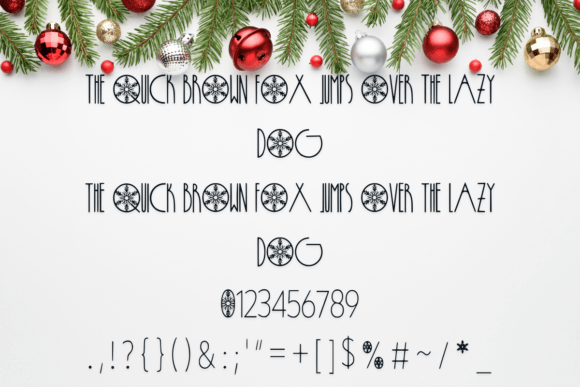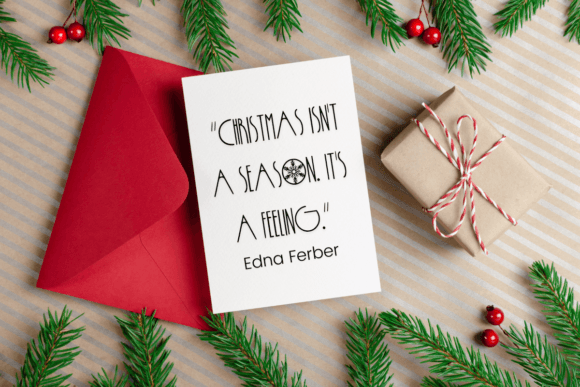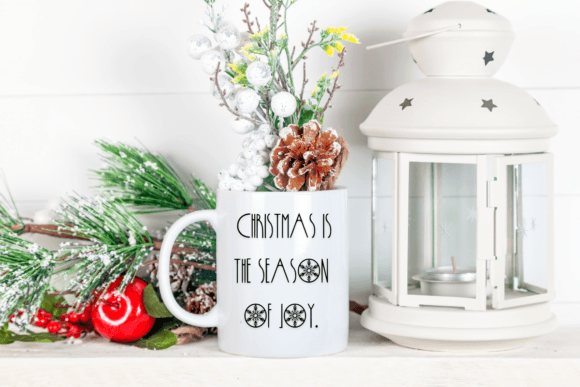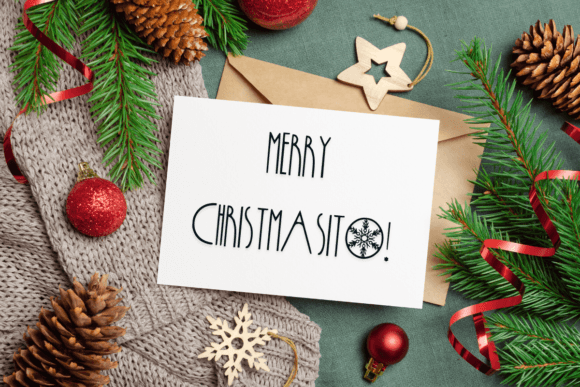
Introducing Christmasito Font: The Perfect Holiday Display Font
Are you looking for a font that captures the fun and festive spirit of Christmas? Look no further than Christmasito Font! This all-caps, display font is designed to bring a touch of holiday cheer to your designs and projects. With its childish and friendly style, Christmasito is perfect for a wide range of applications, from holiday cards and invitations to festive posters and social media graphics.
The Unique Features of Christmasito Font
So, what sets Christmasito Font apart from other display fonts? For starters, its all-caps design gives it a bold and eye-catching look that’s sure to grab attention. But it’s not just the font’s uppercase letters that make it special – it’s also the adorable snowflakes that are woven throughout the design. These cute snowflakes add a friendly, informal, and cozy touch to the font, making it perfect for creating festive and fun designs.
Why Designers and Crafters Love Christmasito Font
Designers and crafters are always on the lookout for fonts that can help them create unique and engaging designs. Christmasito Font is a great choice for anyone looking to add a touch of holiday magic to their projects. Here are just a few reasons why designers and crafters love Christmasito Font:
- Easy to read: Despite its festive design, Christmasito Font is surprisingly easy to read, even at smaller sizes. This makes it perfect for use in a wide range of applications, from holiday cards to social media graphics.
- Versatile: Christmasito Font is a versatile font that can be used in a wide range of designs and projects. Whether you’re creating a festive poster, a holiday card, or a social media graphic, Christmasito Font is a great choice.
- Fun and festive: Let’s face it – Christmasito Font is just plain fun! Its festive design and adorable snowflakes make it the perfect choice for anyone looking to add a touch of holiday cheer to their designs.
How to Use Christmasito Font in Your Designs
Now that you know a little bit more about Christmasito Font, let’s talk about how to use it in your designs. Here are a few tips to get you started:
- Pair it with a simple background: Christmasito Font is a bold and eye-catching font, so it’s best to pair it with a simple background that won’t compete with the font. A plain white or colored background works well.
- Use it for headlines: Christmasito Font is perfect for use in headlines and titles. Its bold design and adorable snowflakes make it a great choice for grabbing attention.
- Add some festive graphics: To really make your designs pop, consider adding some festive graphics, such as holly, snowmen, or Christmas trees. These graphics will help to reinforce the holiday theme and add visual interest to your designs.
Get Creative with Christmasito Font
Christmasito Font is a versatile font that can be used in a wide range of designs and projects. Here are a few ideas to get you started:
- Holiday cards: Create festive holiday cards for friends and family using Christmasito Font.
- Social media graphics: Use Christmasito Font to create festive social media graphics, such as holiday-themed Facebook posts and Twitter headers.
- Posters and flyers: Create eye-catching posters and flyers using Christmasito Font and some festive graphics.
- Craft projects: Use Christmasito Font to add a personal touch to your craft projects, such as scrapbooking and DIY gifts.
| Font Name | Christmasito Font |
| Author | Nova Creations |
Christmasito Font is a fun and festive display font that’s perfect for the holiday season. Its childish and friendly style, combined with its adorable snowflakes, make it a great choice for designers and crafters looking to add a touch of holiday cheer to their designs. Whether you’re creating holiday cards, social media graphics, or festive posters, Christmasito Font is a great choice. So why wait? Add Christmasito Font to your creative projects and make them stand out this holiday season!